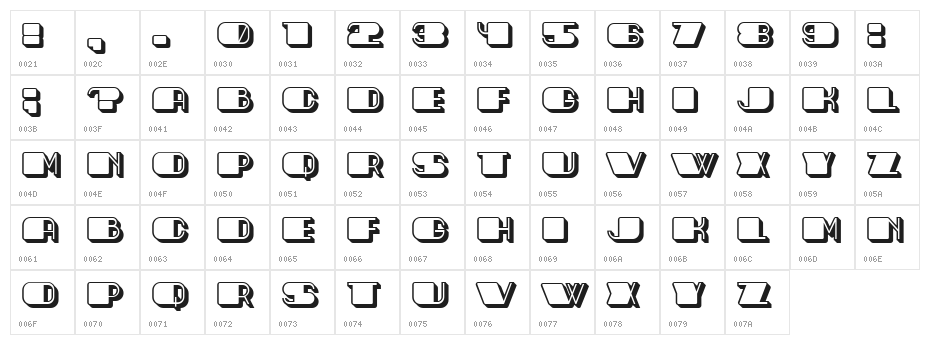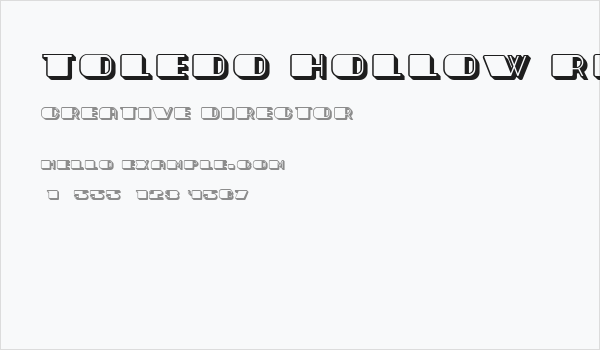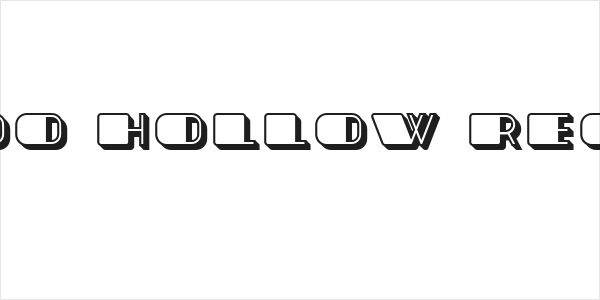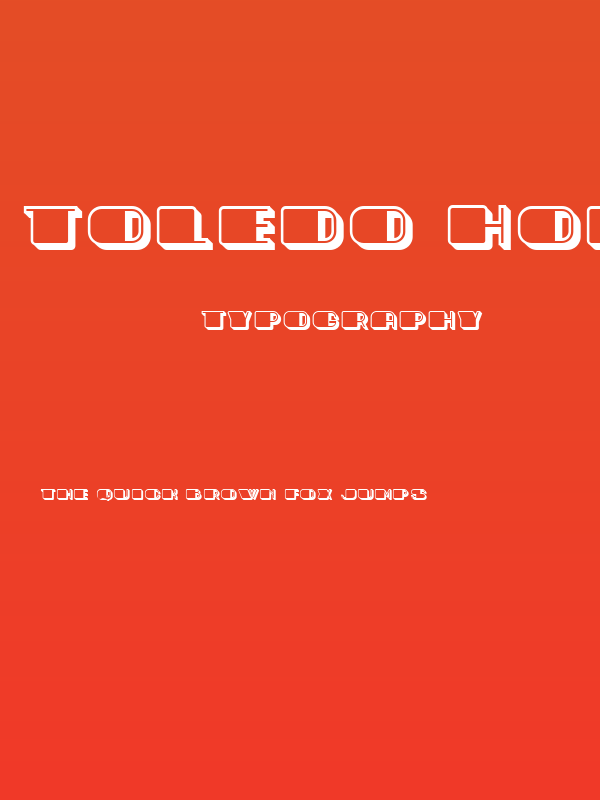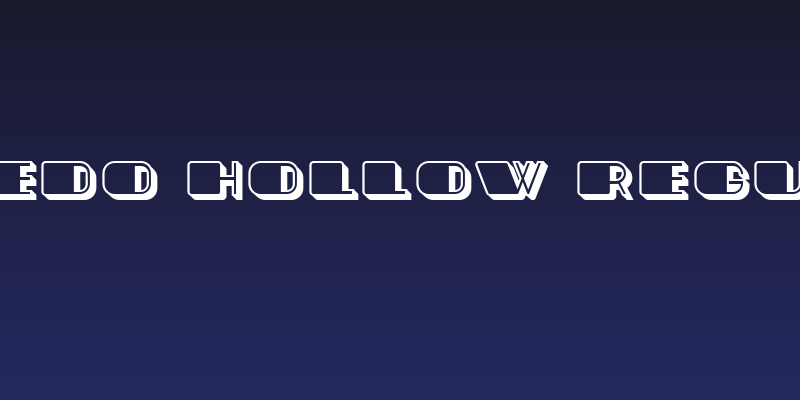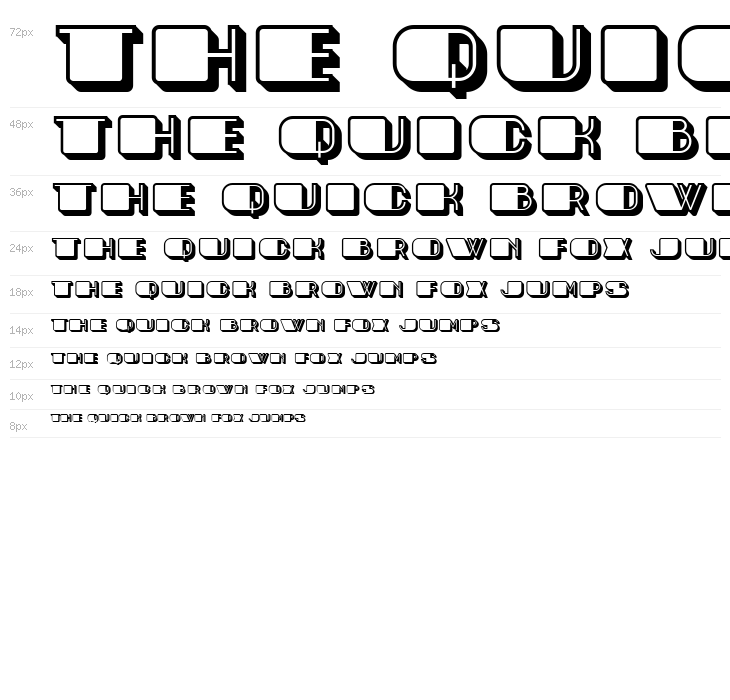
Toledo Hollow Regular Font
Toledo Hollow Regular Description
This font features a unique hollow design with bold outlines, creating a striking visual effect. The characters are geometric and structured, with a modern and futuristic feel. The uppercase and lowercase letters maintain a consistent style, while the numbers and special characters complement the overall design. The hollow aspect of the font allows for creative use of background colors and textures, making it versatile for various design projects. The font's boldness and distinct appearance make it suitable for attention-grabbing headlines and logos.
| Proposed Projects | Ideal for branding, logos, posters, and any design requiring a modern, eye-catching typeface. |